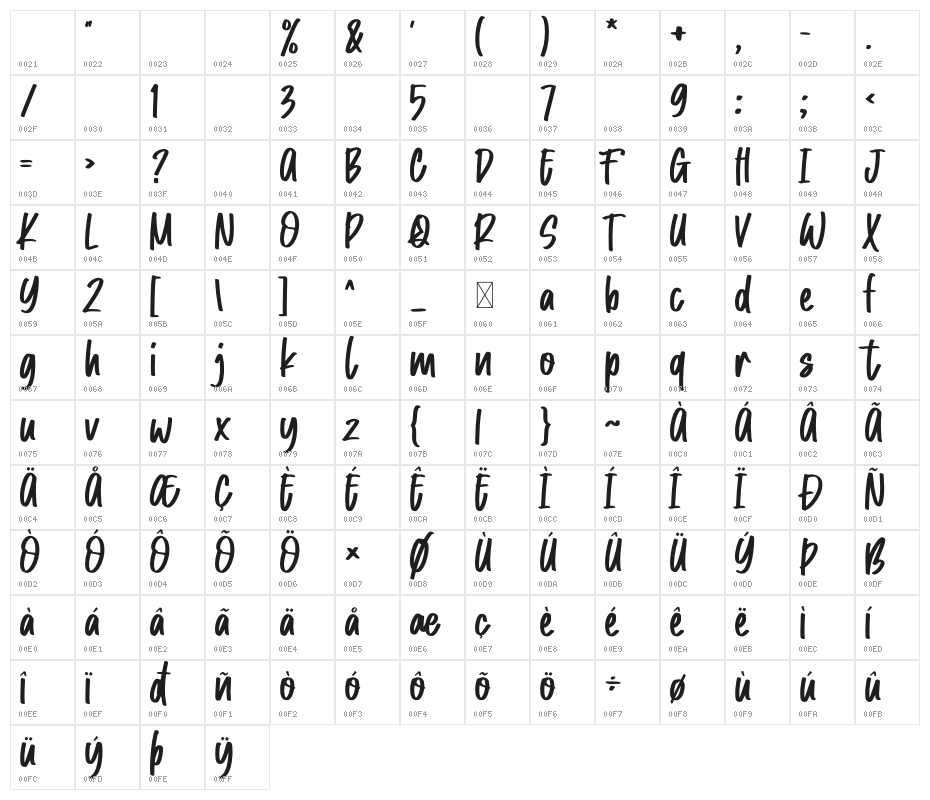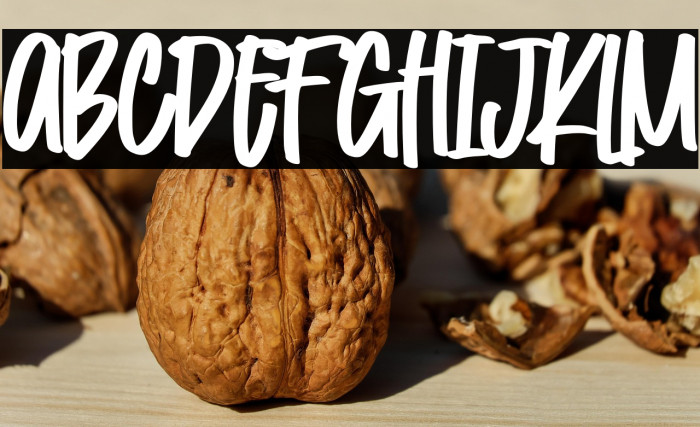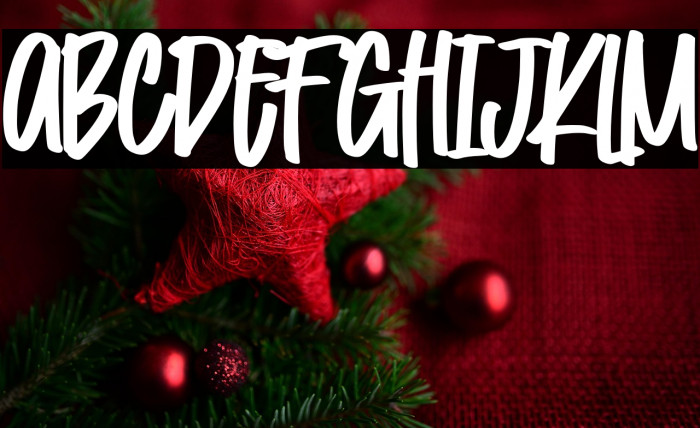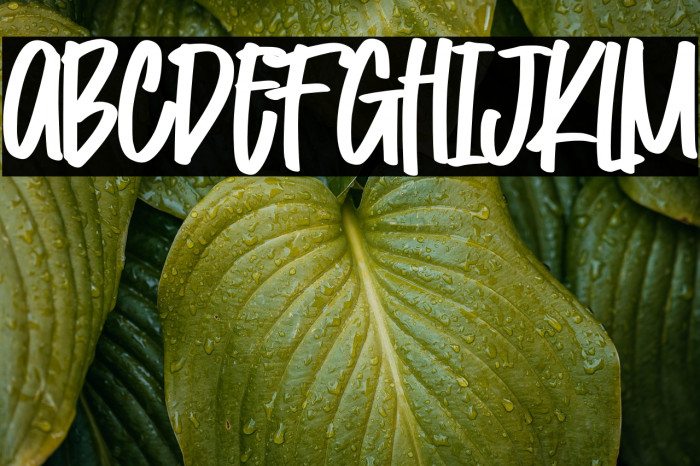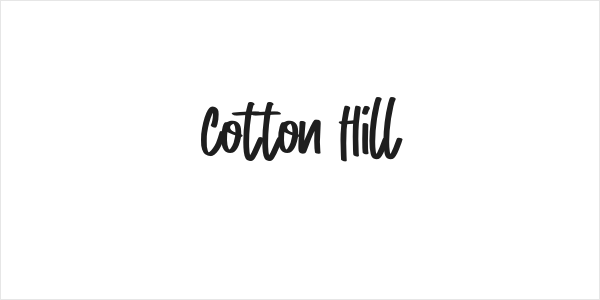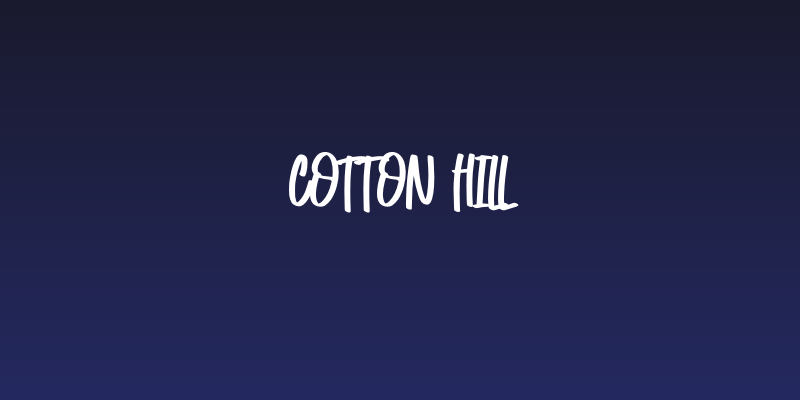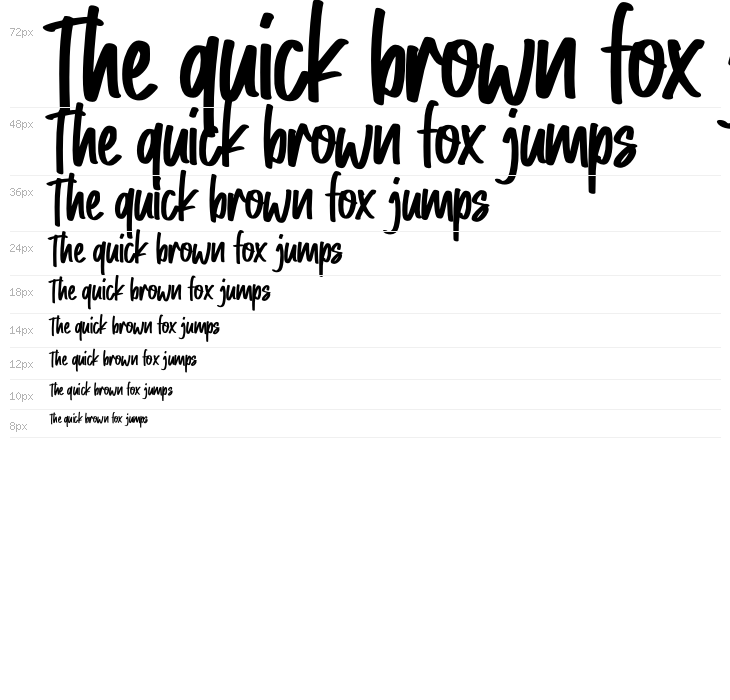
Cotton Hill Font
Cotton Hill Description
A bold, handwritten font with a casual and energetic style, featuring irregular strokes and a playful appearance.
| Overall Style | Casual, Energetic |
| Use Case | Headlines, Informal text, Branding |
| Proposed Projects | Greeting cards, posters, casual branding. |